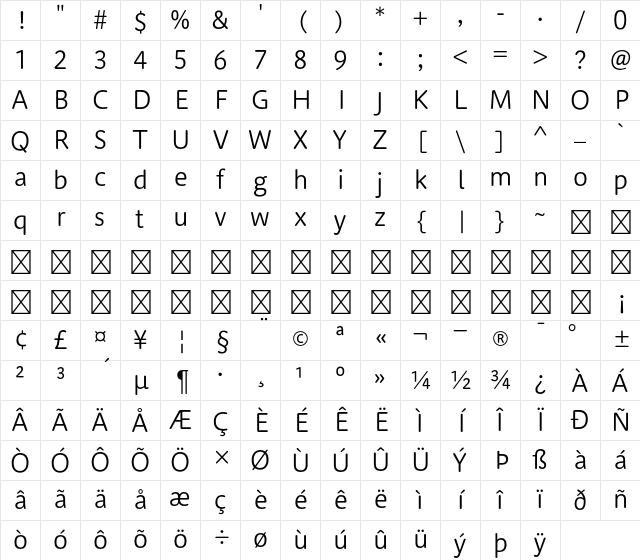
Hiragino UD Sans Rd StdN W3
Style: W3
Foundry: Dainippon Screen Mfg. Co., Ltd.
Designer: JIYUKOBO Ltd.
Design Context for Hiragino UD Sans Rd StdN
Hiragino UD Sans Rd StdN is a composed and adaptable typeface that performs quietly and consistently across a wide range of design contexts.